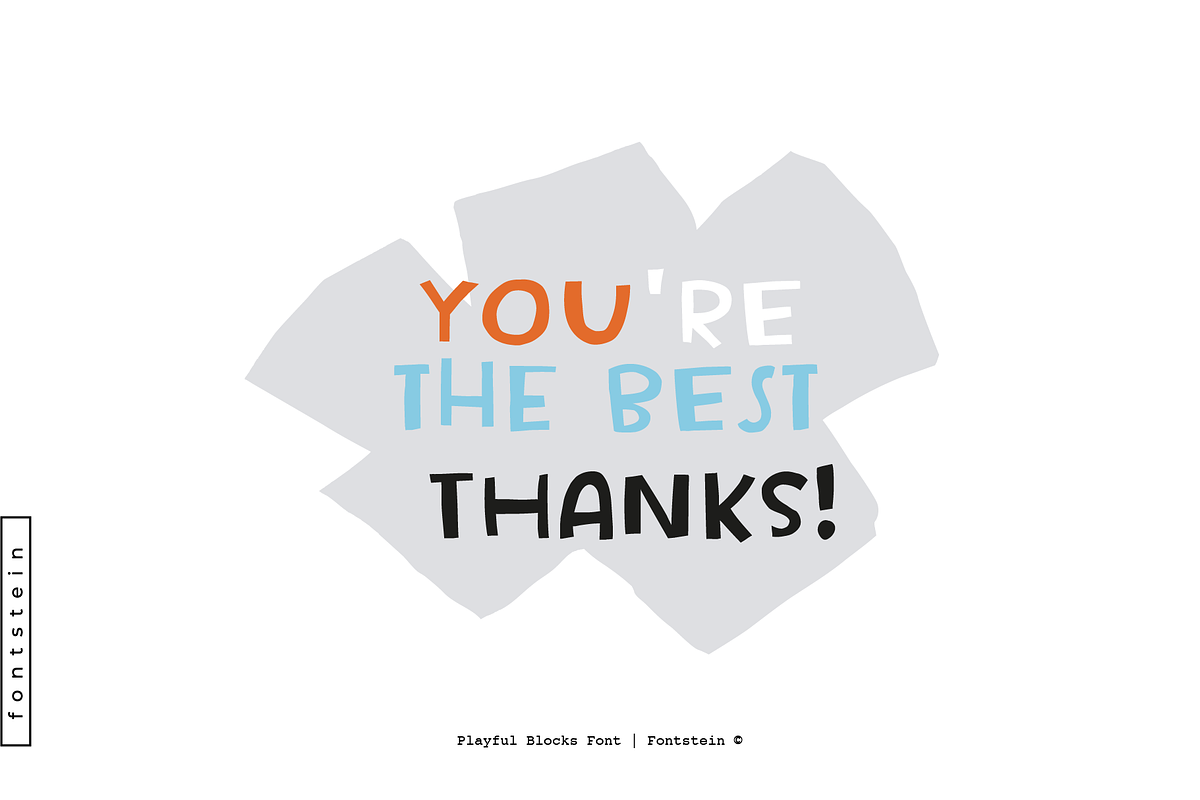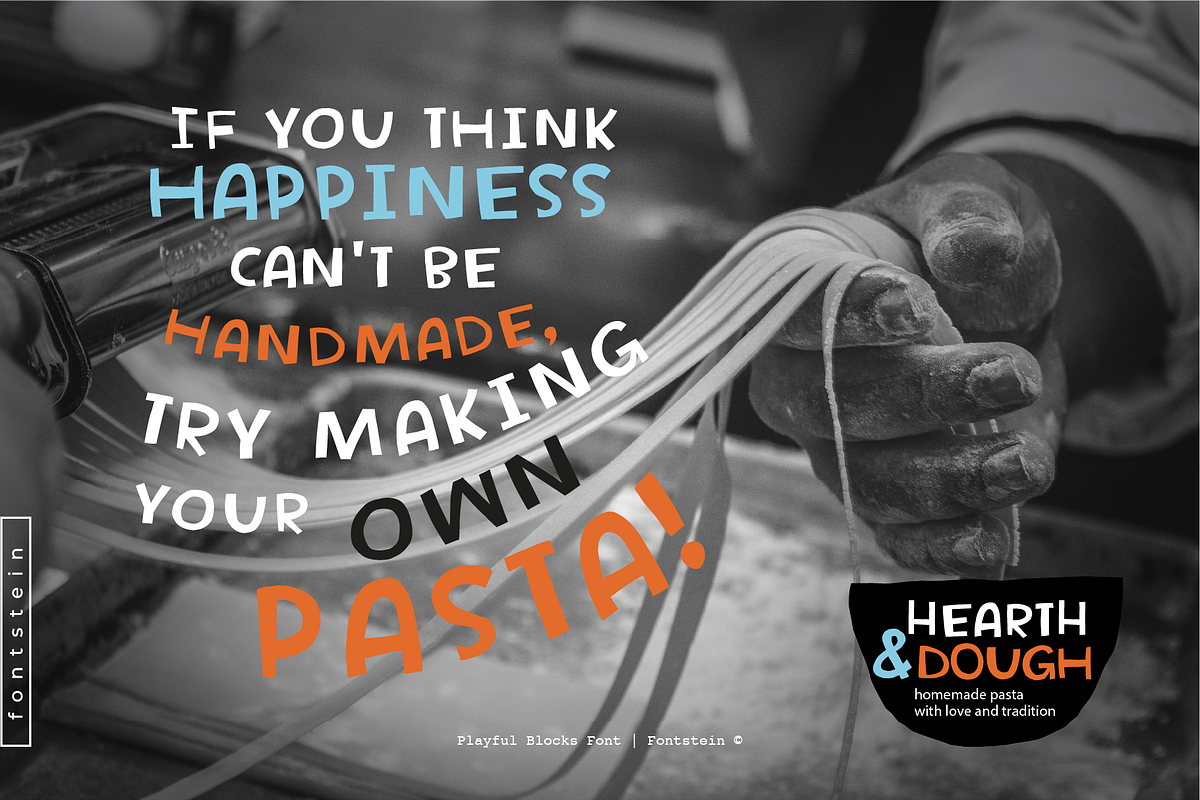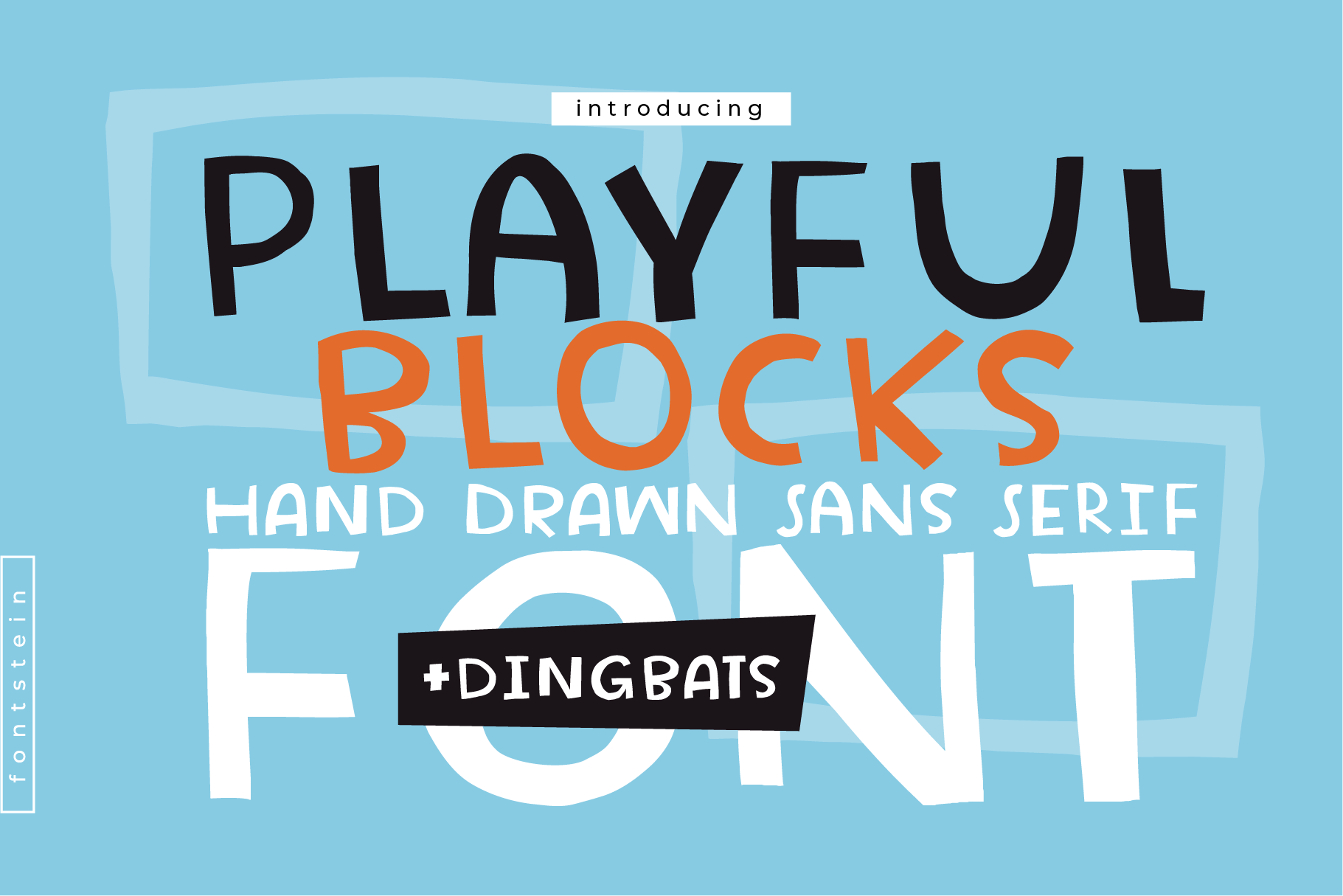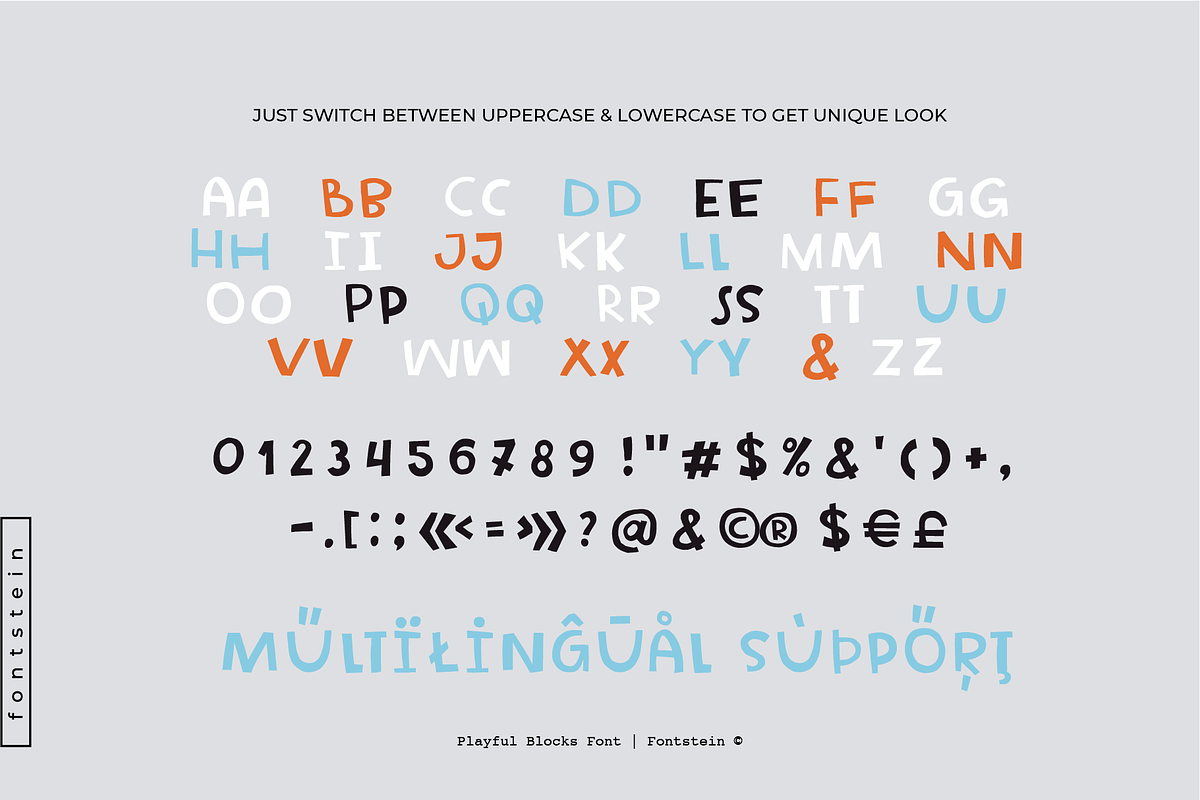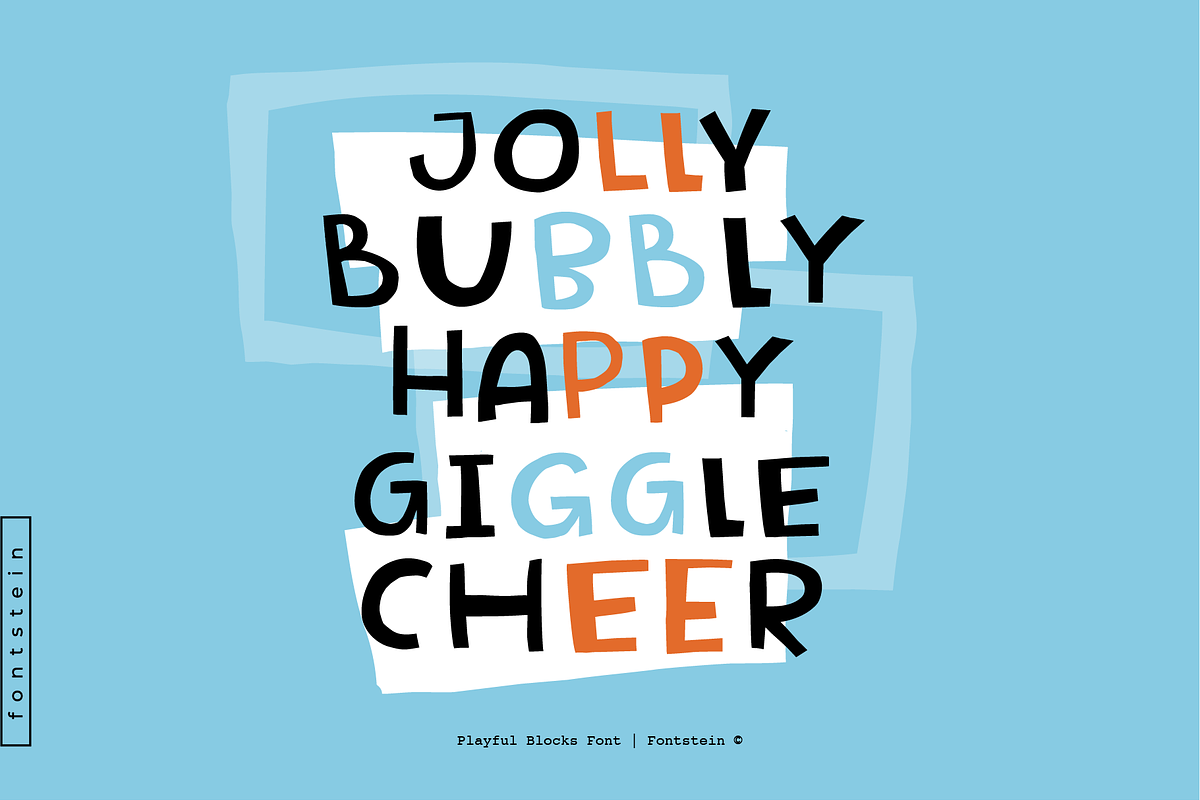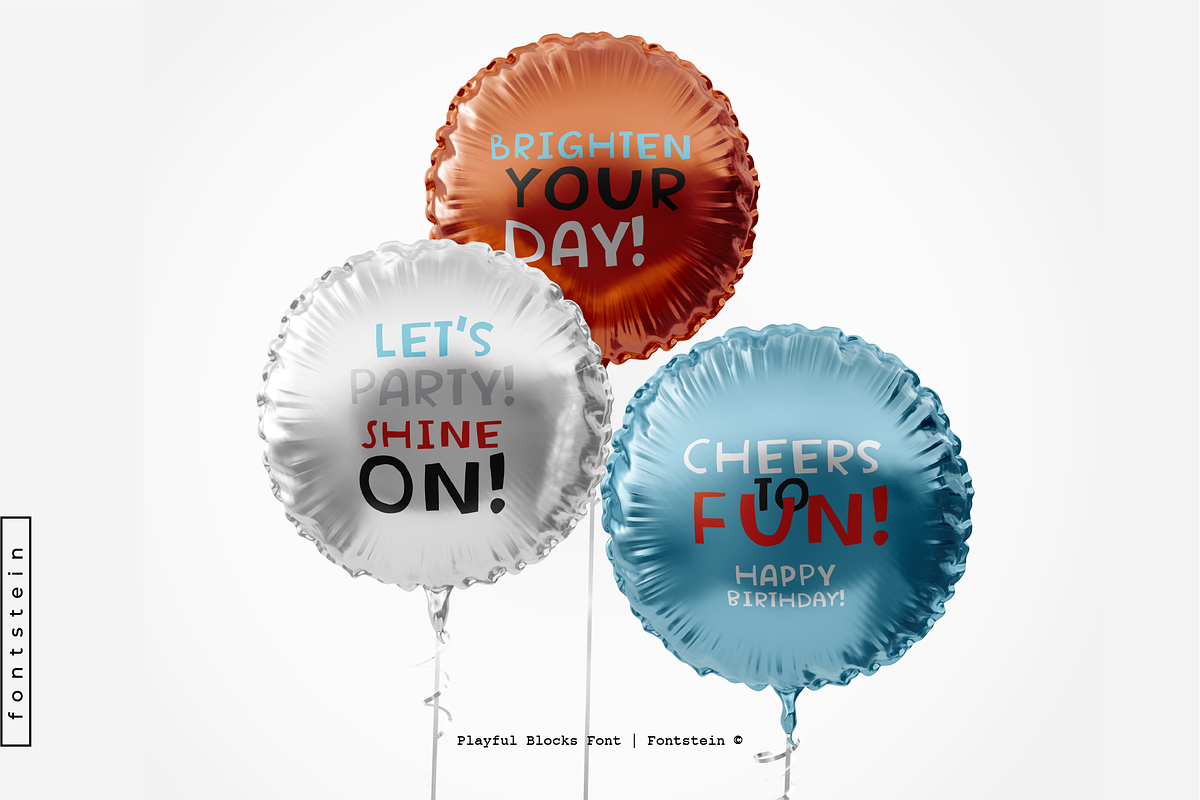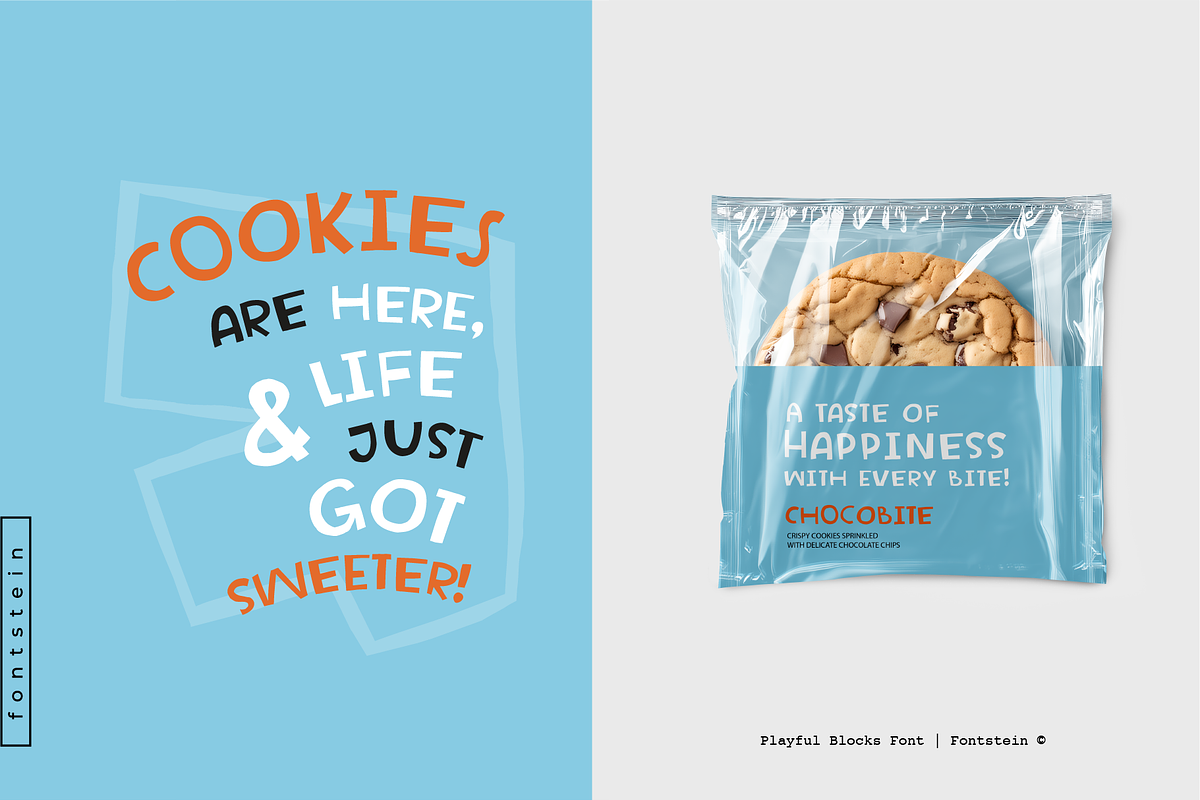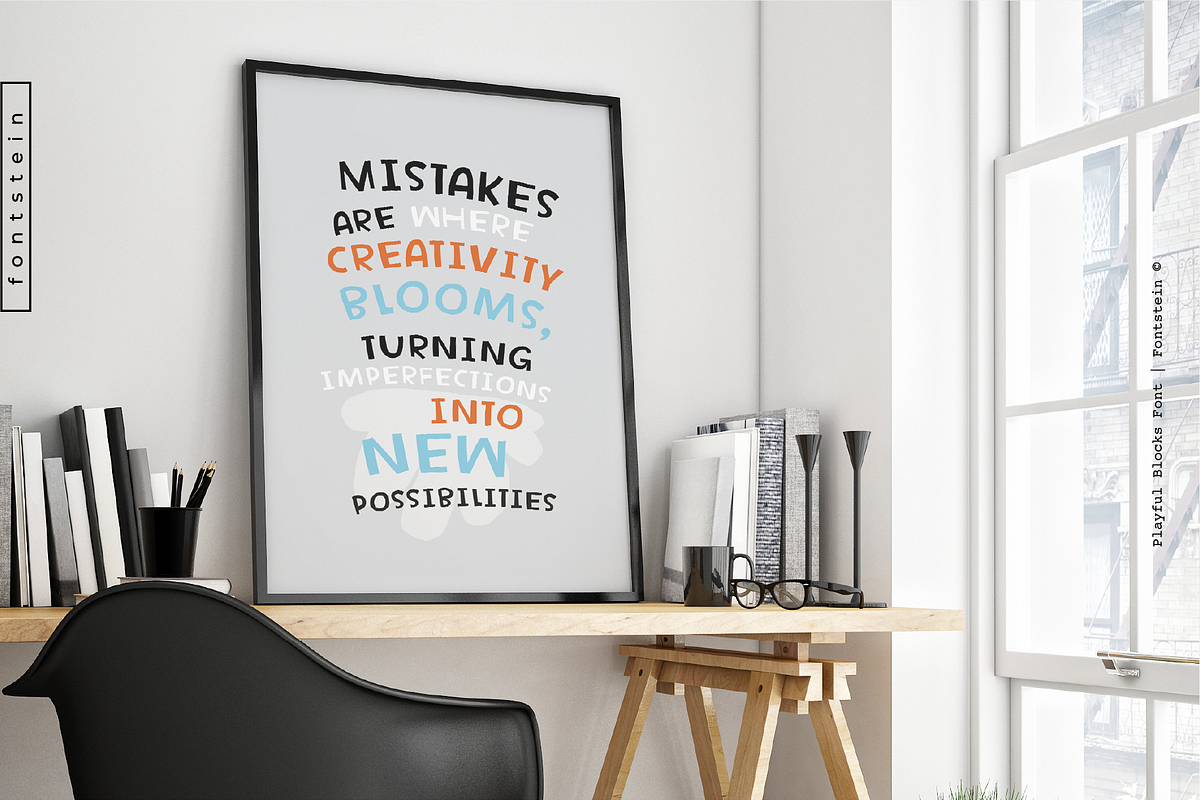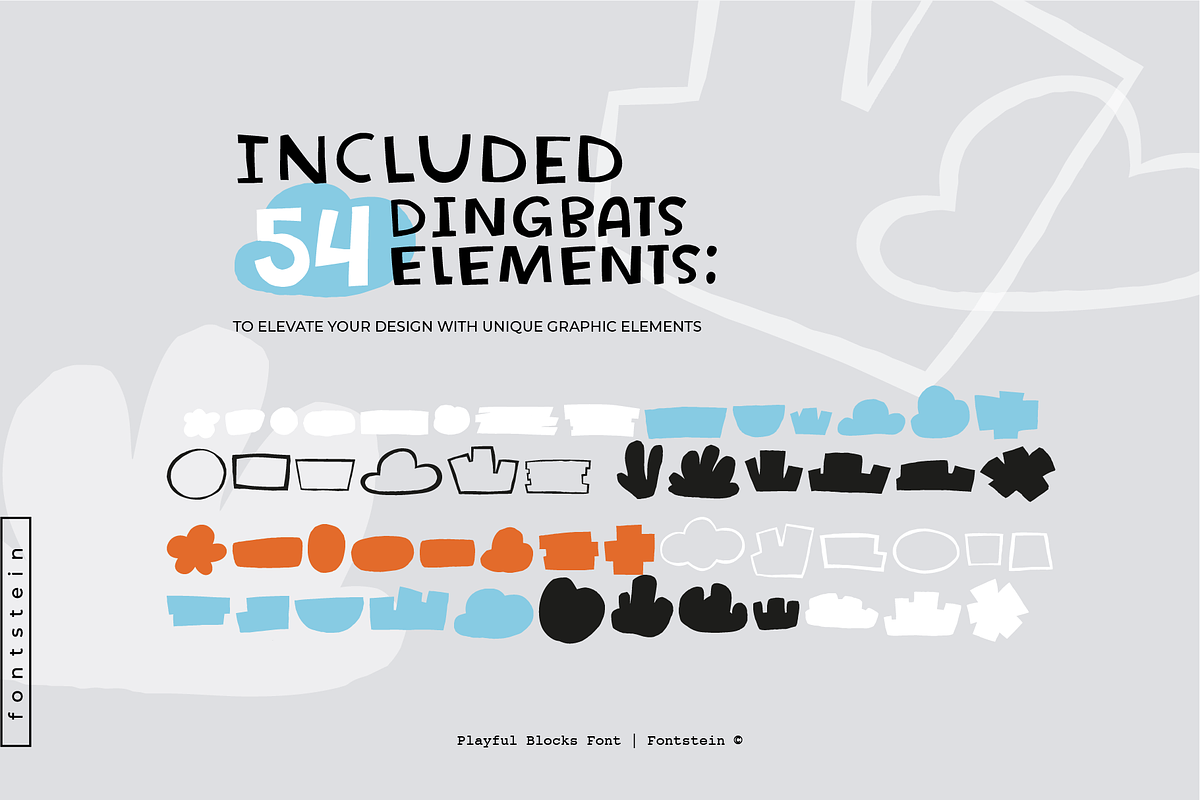
Playful Blocks – Fun & Friendly Font
Meet Playful Blocks, a new go-to font for adding a splash of joy and personality to any design! This quirky and vibrant display font is perfect for projects that need a touch of fun, whether it’s for children’s books, playful branding, eye-catching posters, or creative invitations. With its blocky yet smooth letters, Playful Blocks offers a unique blend of whimsy and readability, making your designs stand out in the best way possible.
But that's not all! Playful Blocks comes with a special dingbat variant, where each letter on your keyboard turns into a geometric shape. These shapes are perfect for adding extra flair to your designs, making them even more dynamic and visually interesting. Whether you want to create playful patterns, unique borders, or just add some fun elements, the dingbats will be your secret weapon.
Playful Blocks includes multilingual support, a full set of uppercase letters, numbers, punctuation marks, and of course, those creative dingbats. Whether you’re designing for print or digital, this font will bring your ideas to life with a delightful, hand-crafted feel. Dive into the playful spirit and let your creativity run wild with Playful Blocks!